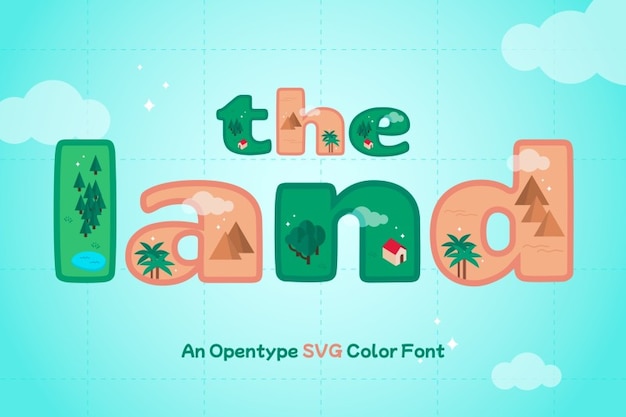
The Land Font
"The Land" is a clean and simple font inspired by the beauty of nature and the elegance of maps. Its minimalist design reflects organic forms and natural balance, making it perfect for eco-friendly projects, outdoor adventures, or earthy branding. With its subtle charm and timeless style, this font captures the essence of grounded simplicity and exploration.